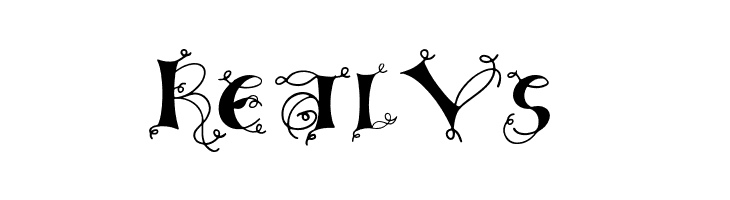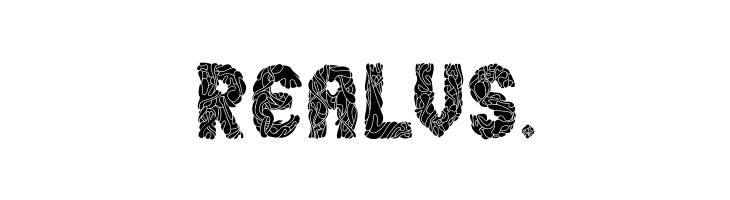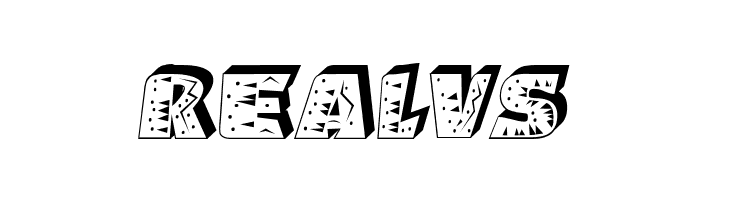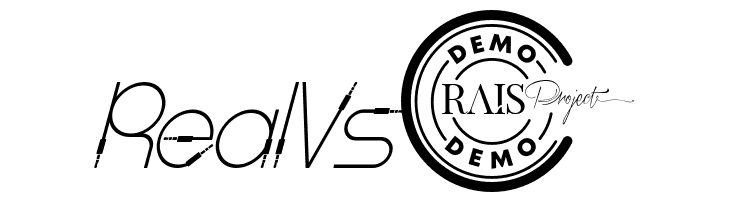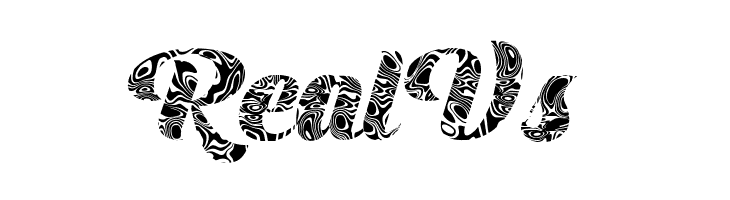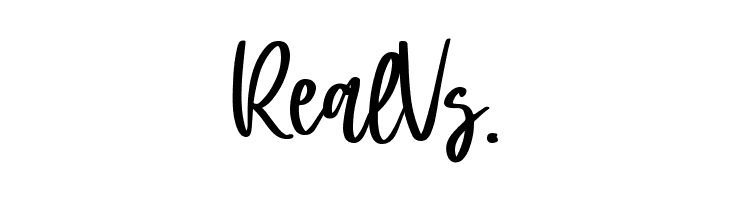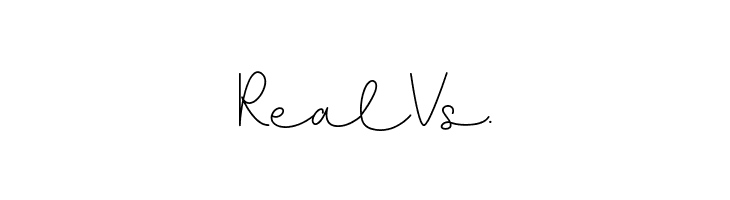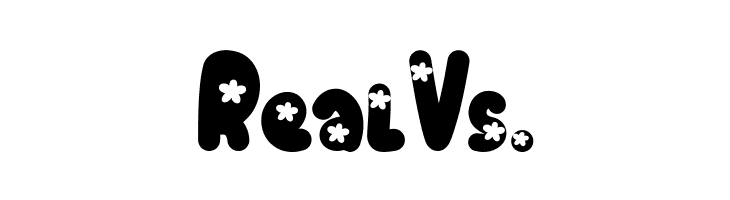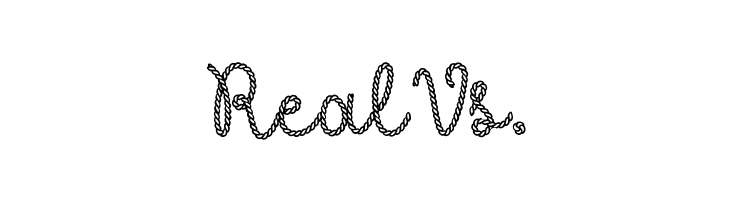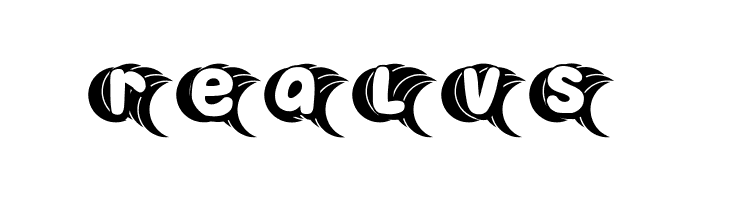
A delicate, flowing script font with elegant loops and curves.
A bold, graffiti-inspired font with a playful, handwritten style.
A playful and whimsical font with bold, rounded letterforms.
A modern, geometric font with thin lines and a sleek, futuristic design.
A sleek, modern italic font with thin strokes and a futuristic touch.
A lively handwritten font with smooth, cursive strokes and a playful style.
A playful, handwritten font with whimsical curls and loops.
A bold, distressed font with a grunge, hand-drawn appearance.
A bold, dynamic font with lightning bolt motifs for energetic designs.
A bold, decorative font with intricate swirling patterns.
A playful, rope-themed font with a detailed, three-dimensional appearance.
A bold, decorative font with whimsical, swirling embellishments.
A playful, flower-adorned decorative font with bold, rounded characters.
An intricate, decorative font with vintage and steampunk influences.
A geometric, linear font with intersecting lines and boxed numerals.
A bold, edgy font with thick strokes and sharp angles, ideal for impactful designs.
A geometric, futuristic font with parallel lines and angular design.
An ornate and whimsical decorative font with elaborate swirls.
An ornate and decorative font with intricate swirls and high contrast.
A bold, playful font with circular cutouts and a modern, quirky style.
A bold, artistic font with a hand-drawn, dynamic style.
A bold, decorative font with intricate patterns and a playful, dynamic style.
A pixelated, digital-inspired font with a structured and futuristic design.
A bold, decorative font with intricate swirling patterns.